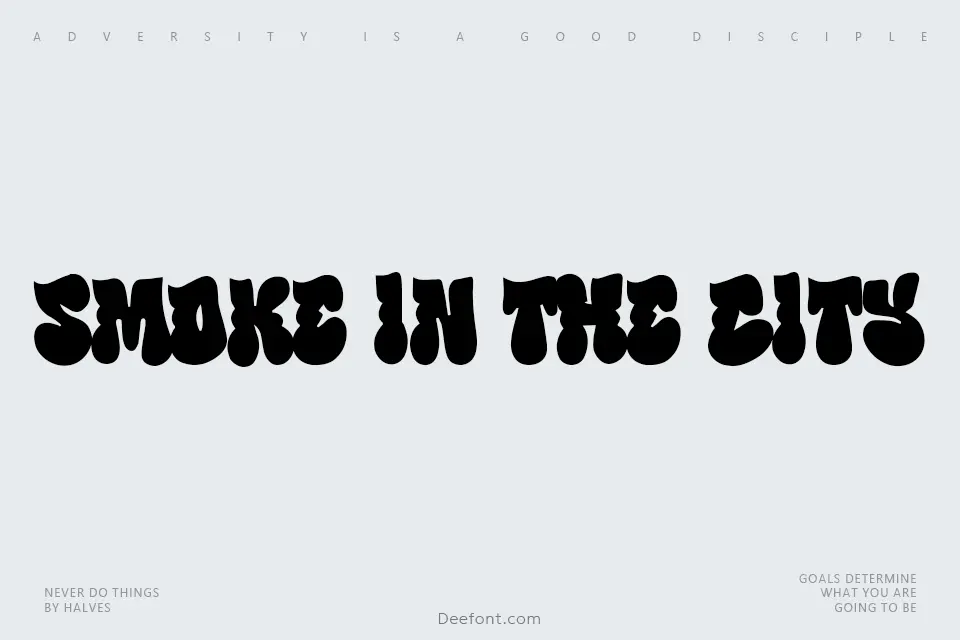
Smoke in the City Font
Smoke in the City is a bold graffiti script font inspired by urban cities and smoke-filled architectural elements. This striking typeface features rough slanted lines, loops, and distinctive holes that create an awesome final style recognizable from any distance. Perfect for impactful branding projects, homepage designs, magazine covers, contemporary art posters, flyers, fashion taglines, and social media campaigns. The font combines creative freedom with professional appeal, making it ideal for packaging design, t-shirt printing, app interfaces, and eye-catching advertisements that demand attention.